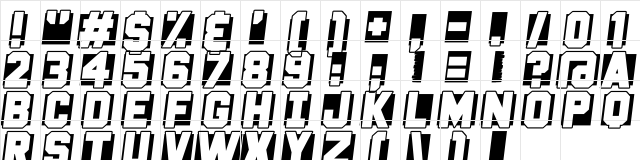
Fast Forward Regular
| Designer | IMAGEX |
Design Context for Fast Forward Typeface
Fast Forward is a composed and adaptable typeface that performs quietly and consistently across a wide range of design contexts.